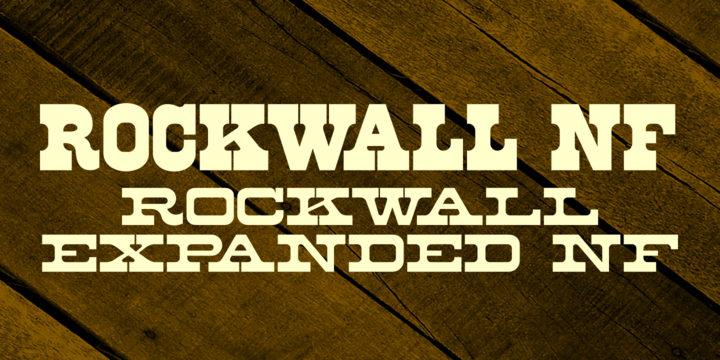
Rockwall NF
by Nick's Fonts
Two offerings from the Page specimen book, Aldine and Aldine Extended, provided the patterns for this family of Western-style standards, named for the smallest county in Texas, at least area-wise. Both flavors of this font feature the 1252 Latin, 1250 Central European, 1254 Turkish and 1257 Baltic character sets.
Rockwall NF
Rockwall Expanded NF